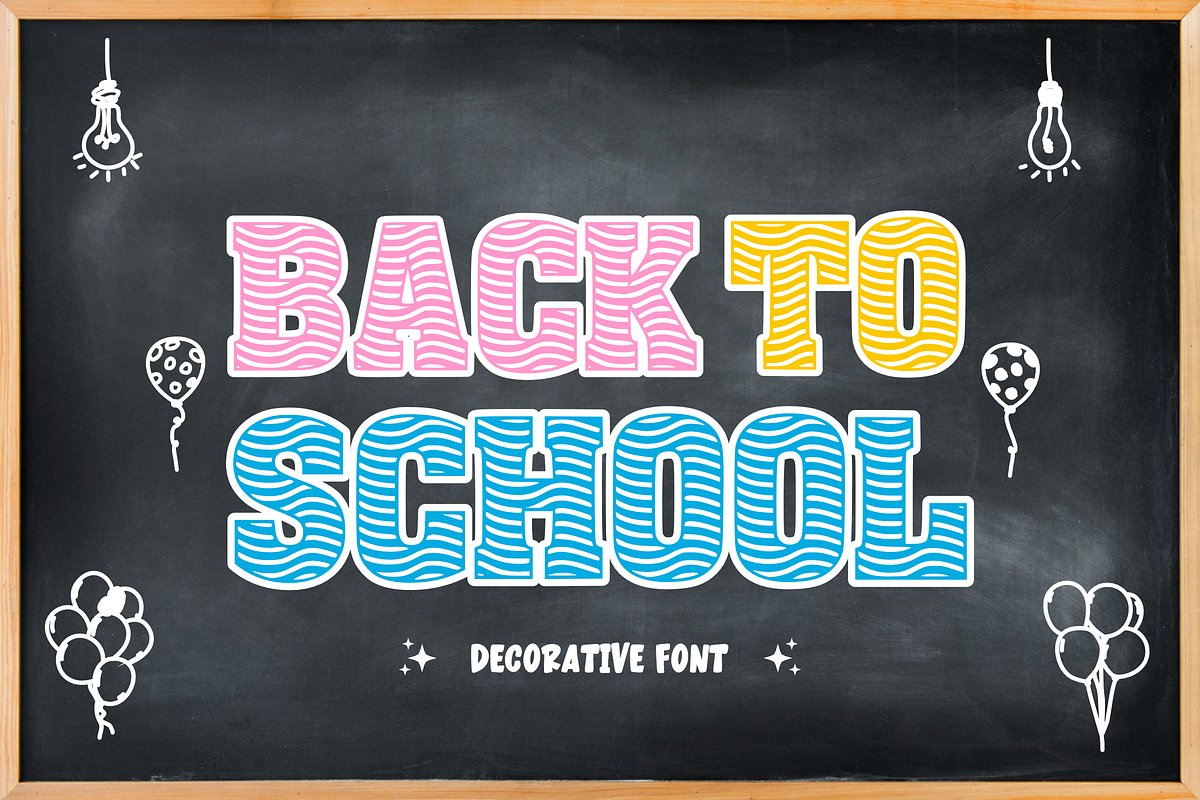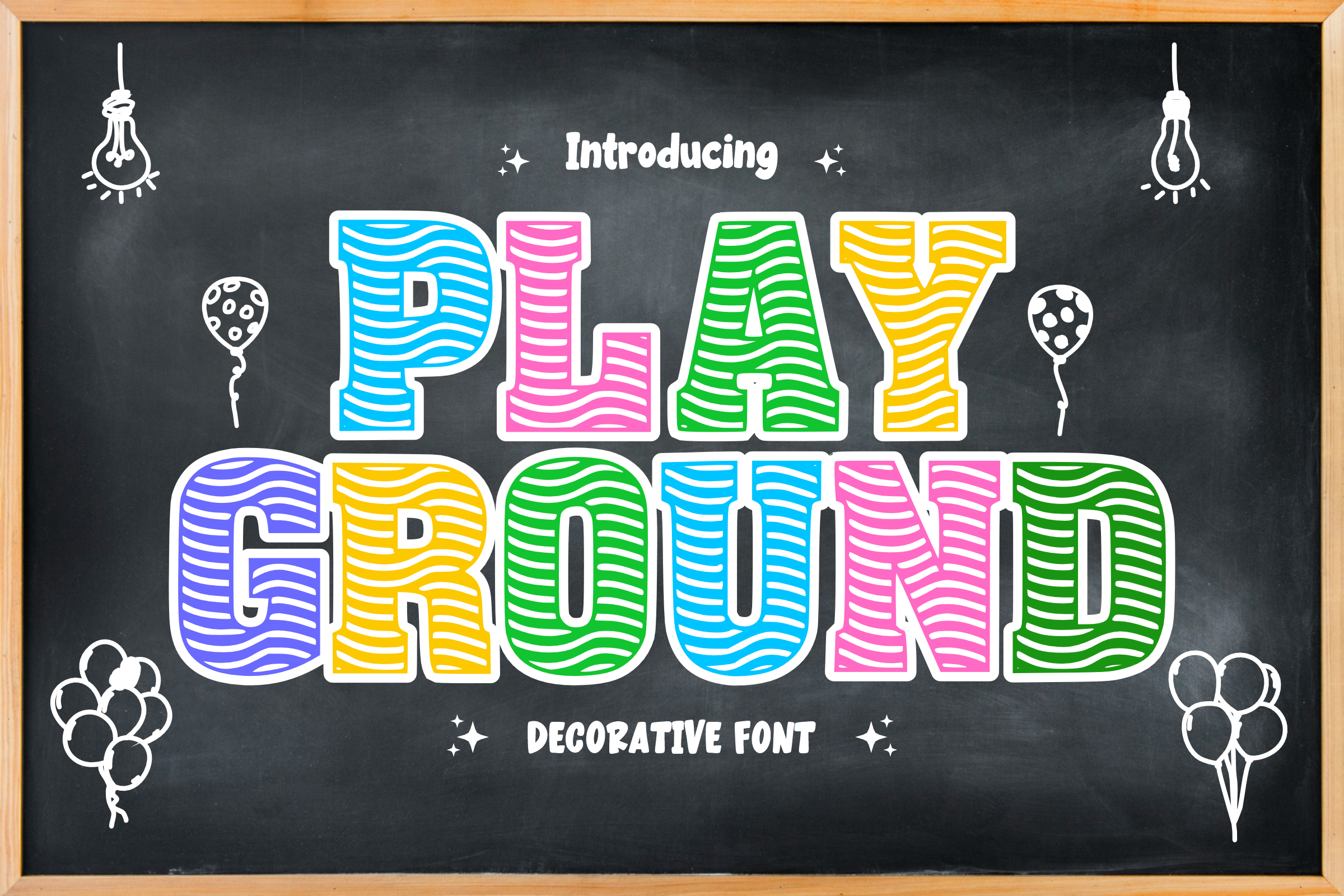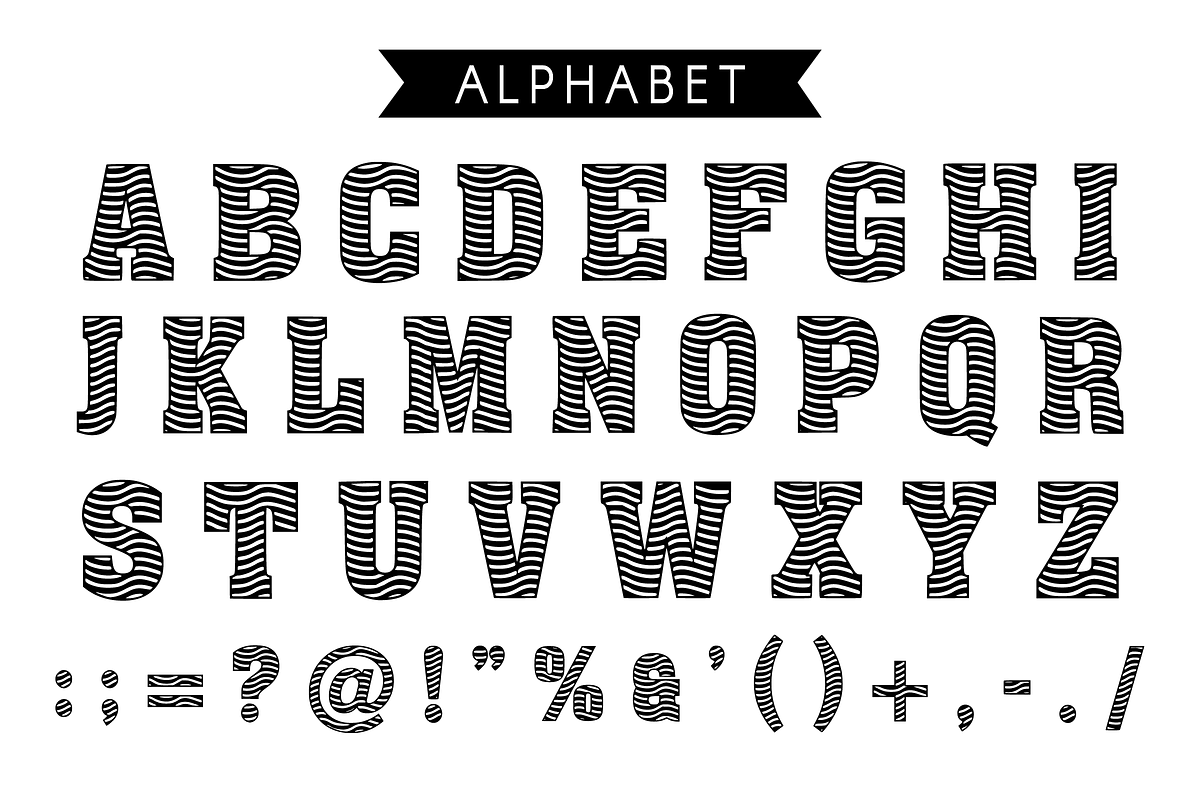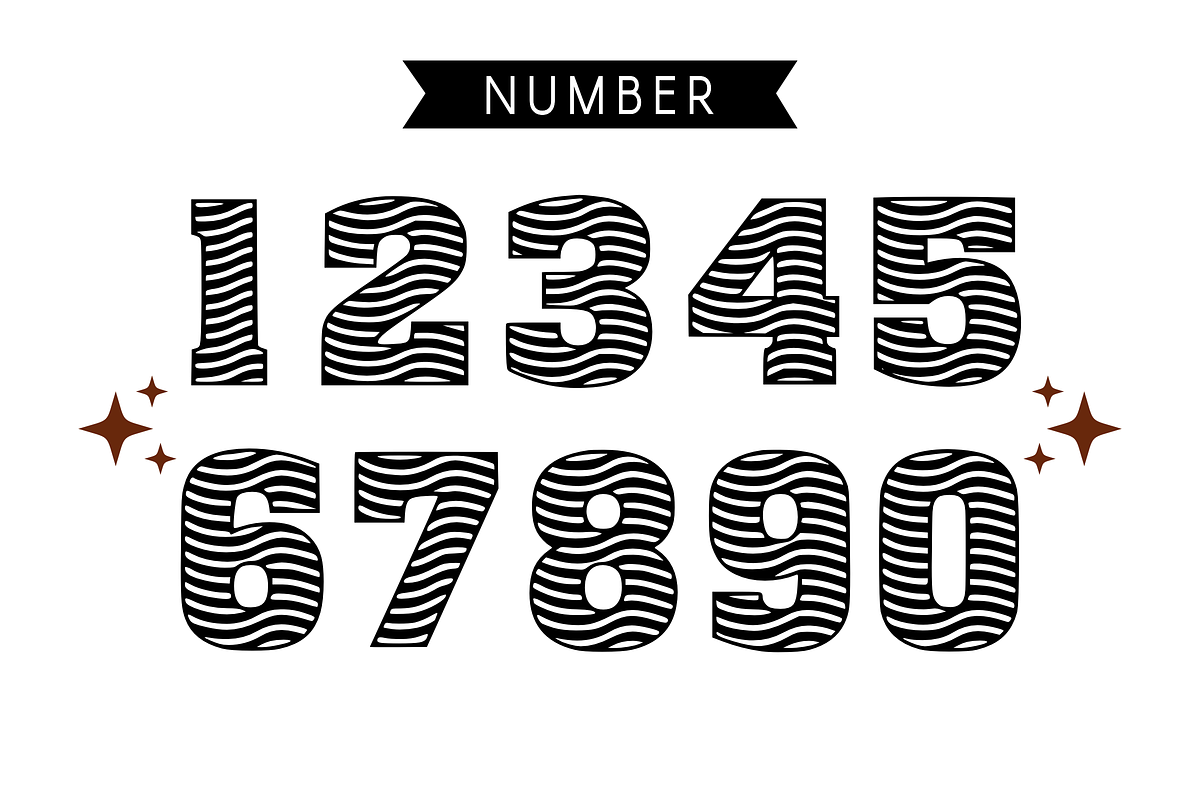
Play Ground - Kids Font Types
Introducing “Play Ground,” a cute and colorful decorative font. It embodies playfulness and authenticity and is the perfect choice for any children activity or school project. Add this chunky lettered font to your designs and notice how it makes them come alive!